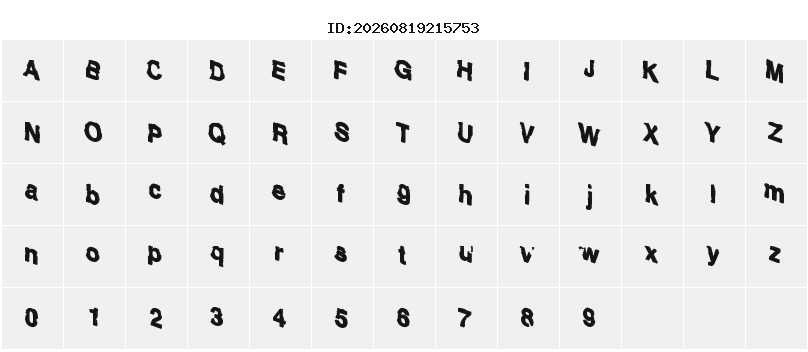
• Font Name: Sharking
• Designer: Xerographer Fonts Max Infeld
• Manufacturer: Xerographer Fonts
• Description: Made at Xerographer Studios in Chico,CA
About Sharking.ttf
Sharking.ttf is a modern, elegant sans-serif font designed for ultimate readability and visual harmony. Perfect for branding, headlines, web design, and print materials.